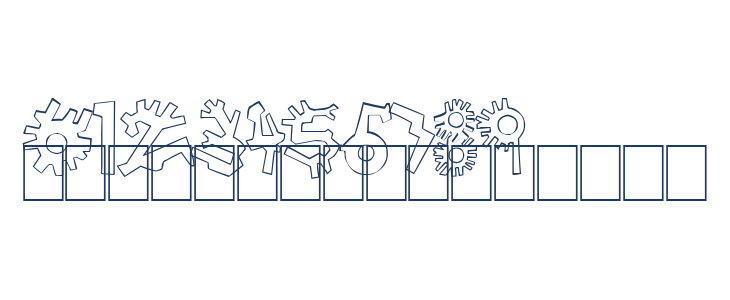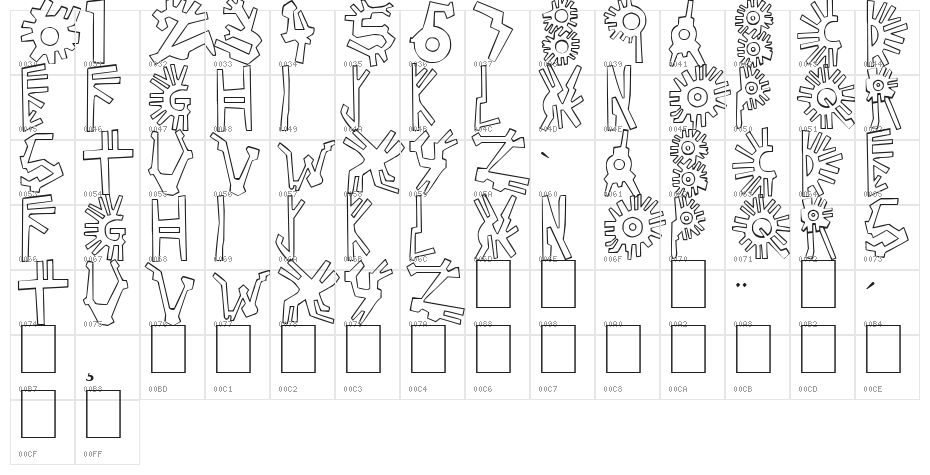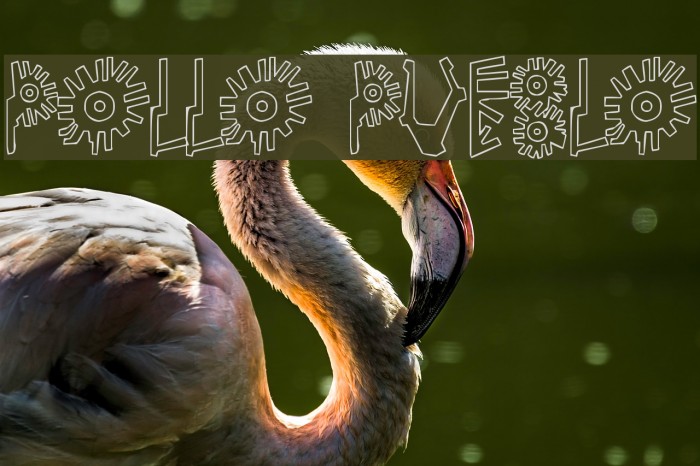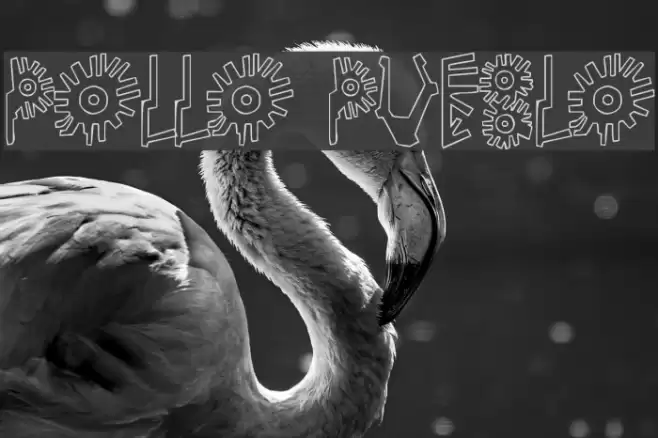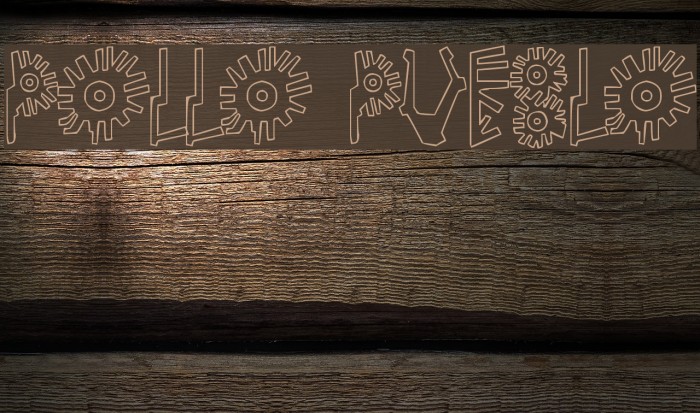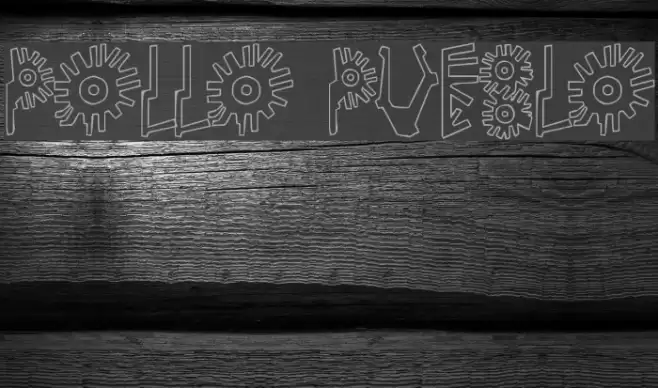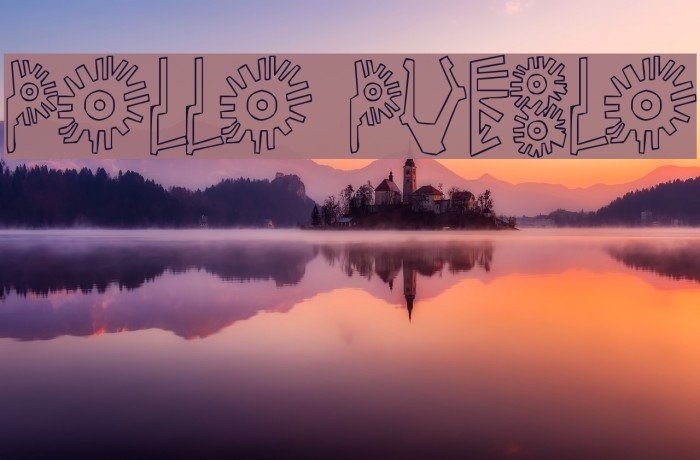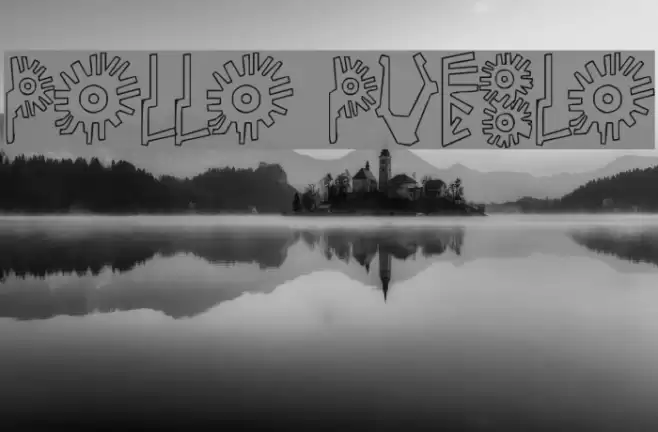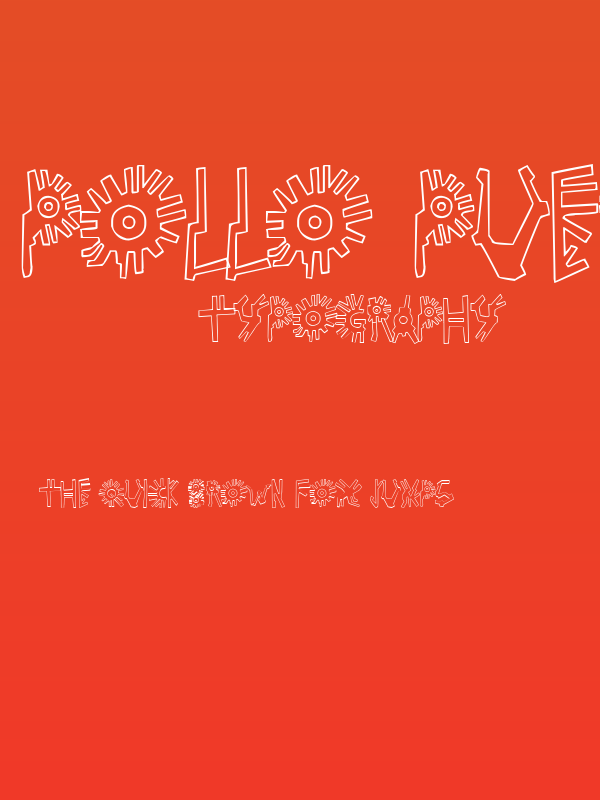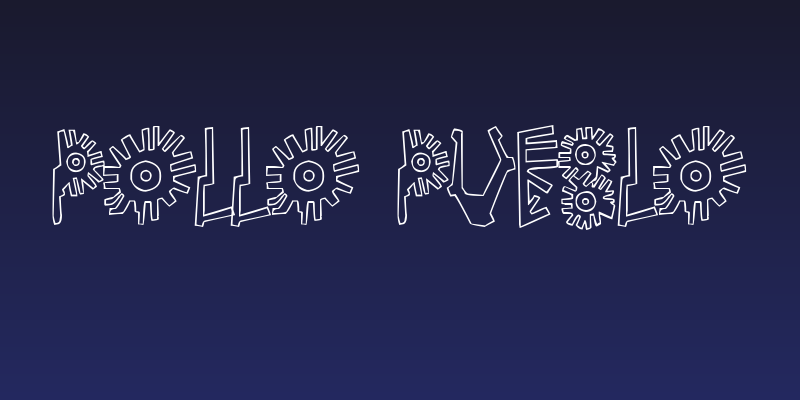
Pollo Pueblo Font
Pollo Pueblo Description
This font features a highly decorative and abstract design, with each character resembling a unique, artistic symbol. The letters are composed of bold, angular lines with varying thickness, creating a dynamic and energetic appearance. The style is reminiscent of tribal or ancient motifs, with some characters incorporating sunburst or star-like elements. The numbers and special characters follow the same artistic theme, adding a cohesive look to the entire set. This font is not suited for body text due to its intricate design but makes a striking impact in headlines or artistic projects.
| Use Case | Headlines, Artistic projects, Posters |
| Proposed Projects | Ideal for artistic projects, posters, album covers, or any design requiring a bold, tribal aesthetic. |